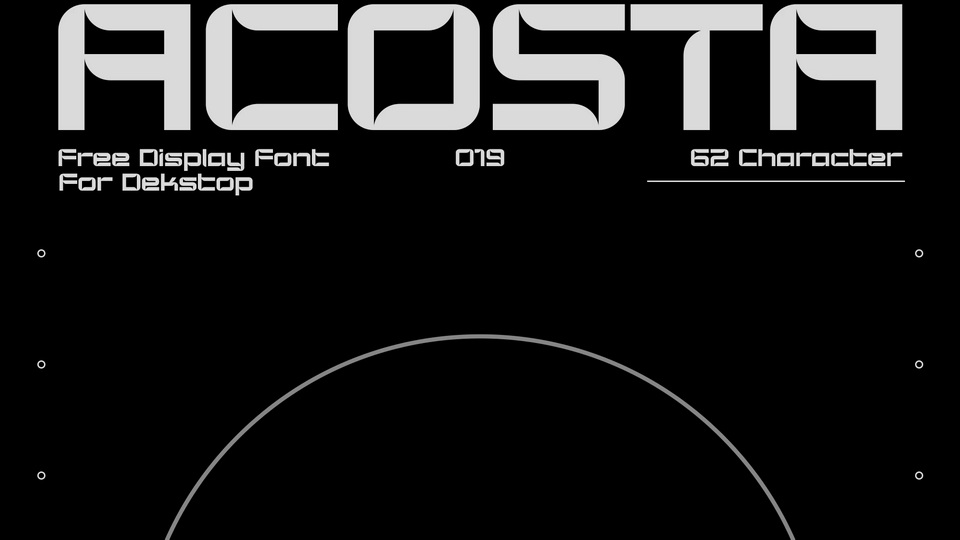
Download Acosta font, a bold geometric display typeface inspired by sci-fi and technology. Acosta font provides a solid foundation and a broad range of expression for an eye-catching design.
Designer: Visual Avortic